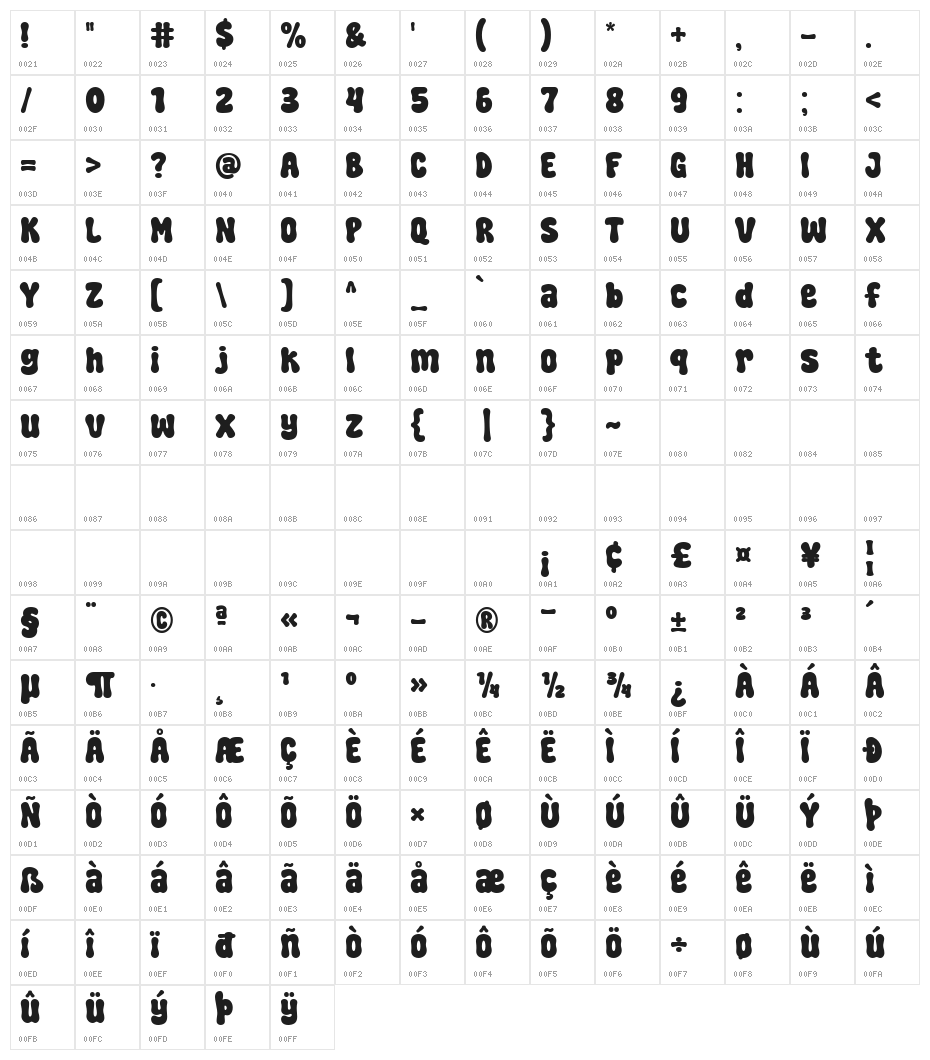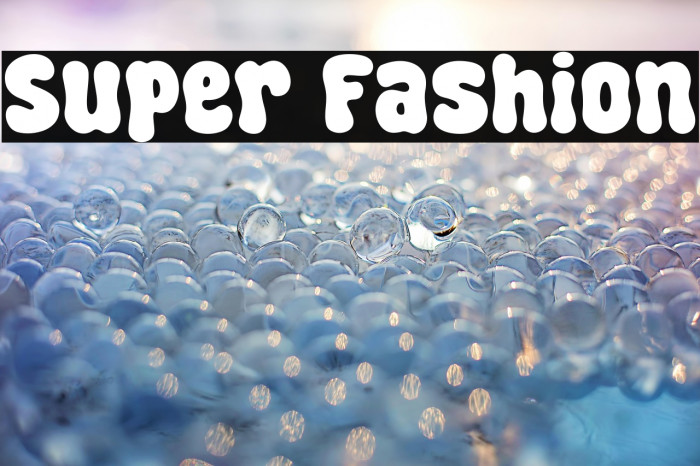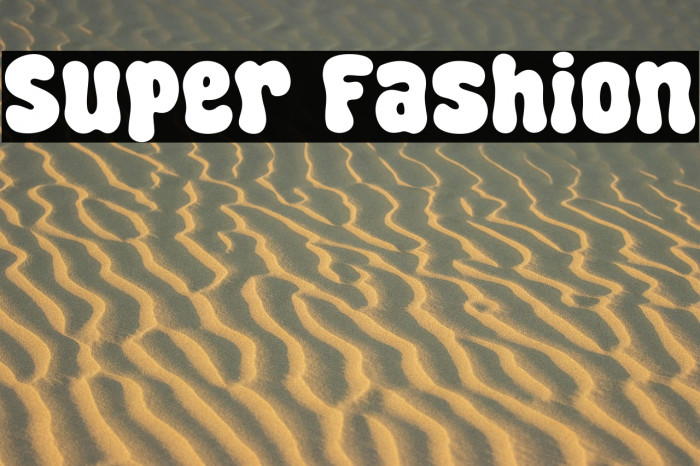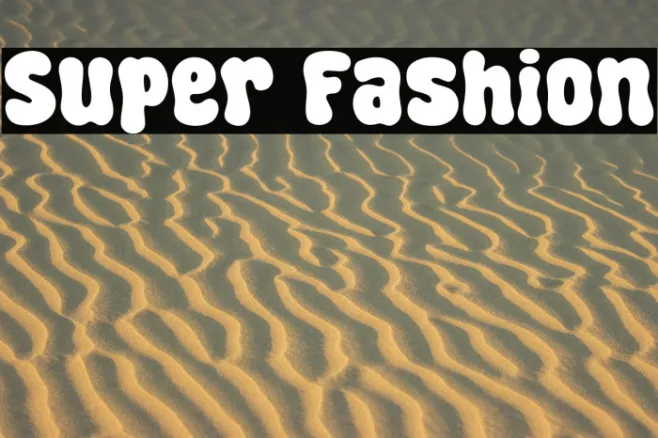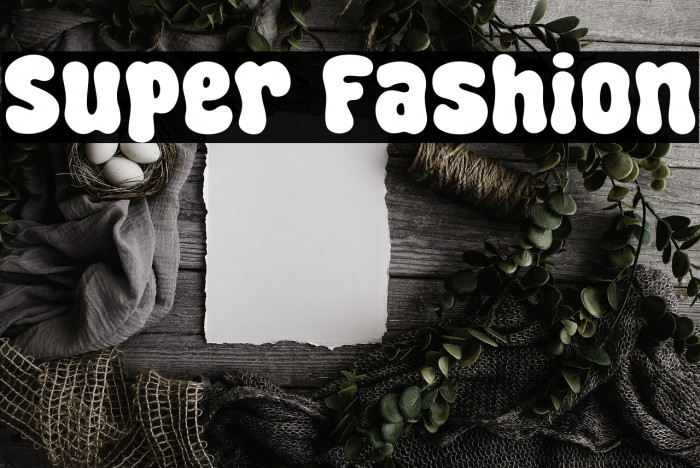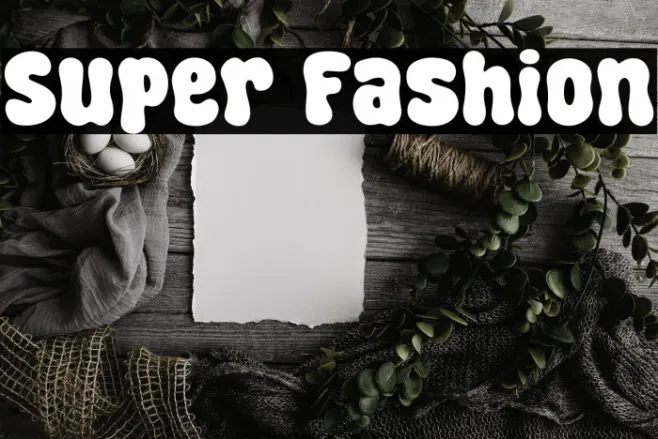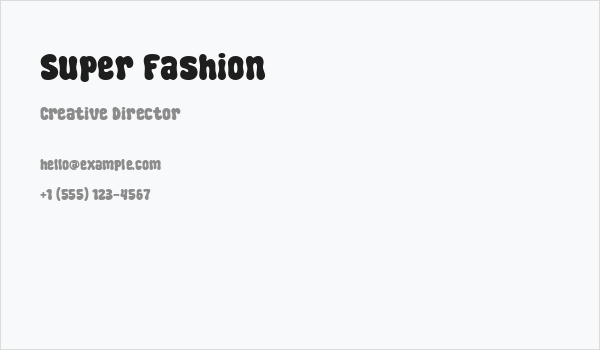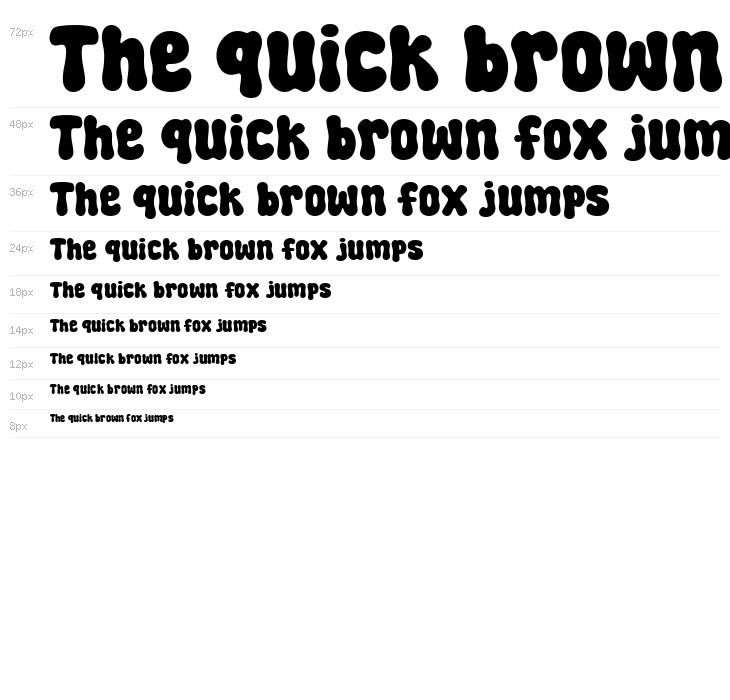
Super Fashion Font
Super Fashion Description
This playful and bold font features thick, rounded characters that exude a sense of fun and creativity. The letters are uniformly bold with a bubbly appearance, making them stand out in any design. The font's style is reminiscent of retro or vintage aesthetics, with a modern twist that makes it versatile for various applications. The numbers and special characters maintain the same playful and bold characteristics, ensuring consistency across all text elements. Its unique style makes it ideal for projects that require a touch of whimsy and boldness.
| Overall Style | Playful, Retro, Modern |
| Proposed Projects | Ideal for children's books, playful branding, posters, and creative social media graphics. |